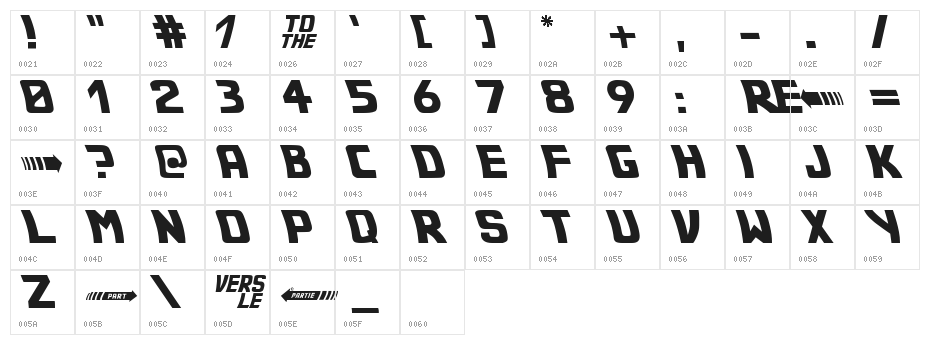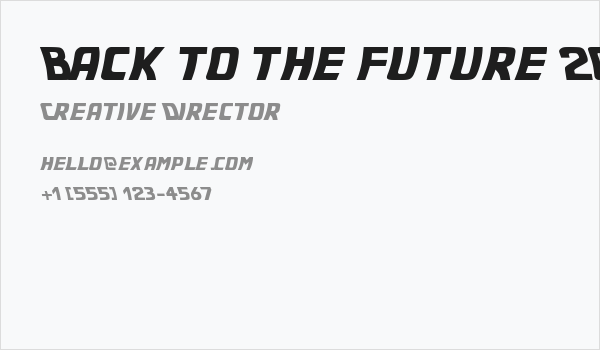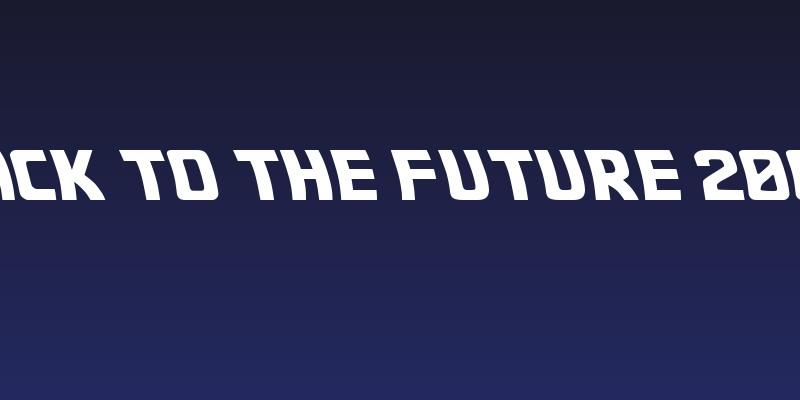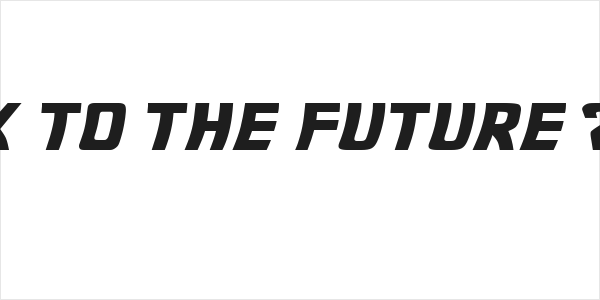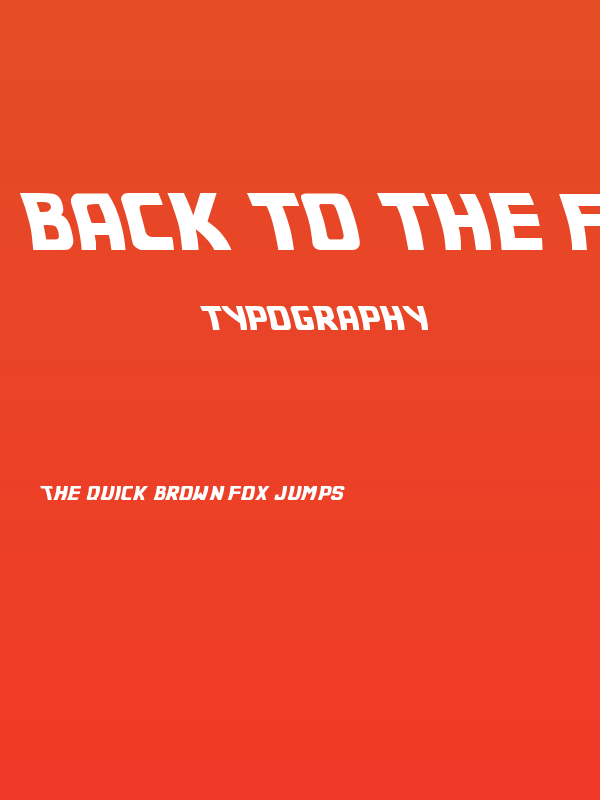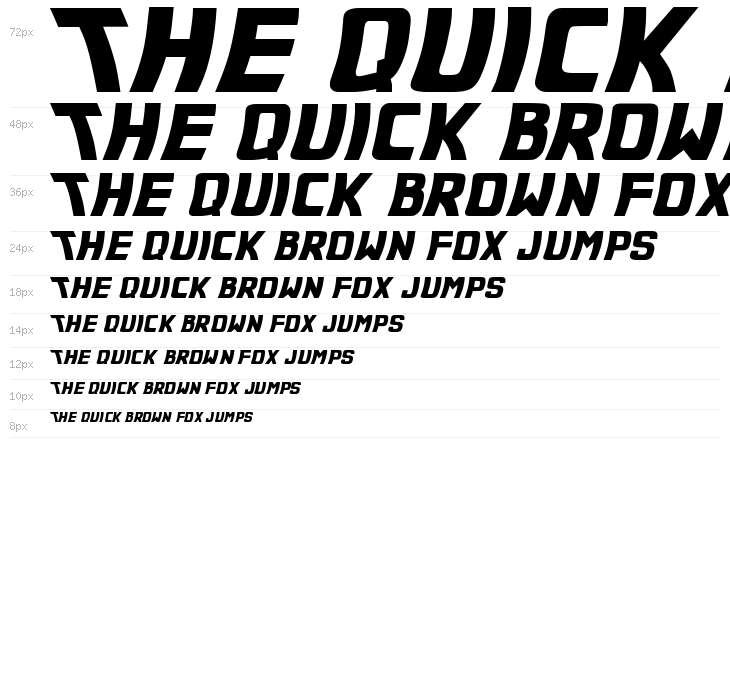
Back to the future 2002 Font
Back to the future 2002 Description
This font features a bold, futuristic style with a distinct slant that gives it a sense of motion and speed. The characters are wide and angular, with sharp edges and a strong presence. The uppercase and lowercase letters maintain a consistent design, enhancing readability while still conveying a unique, modern aesthetic. The numbers and special characters are crafted with the same boldness, ensuring uniformity across all glyphs. This font is ideal for projects that require a dynamic and forward-thinking look.
| Proposed Projects | Ideal for sci-fi themed projects, movie posters, video game titles, and branding that requires a modern and energetic feel. |